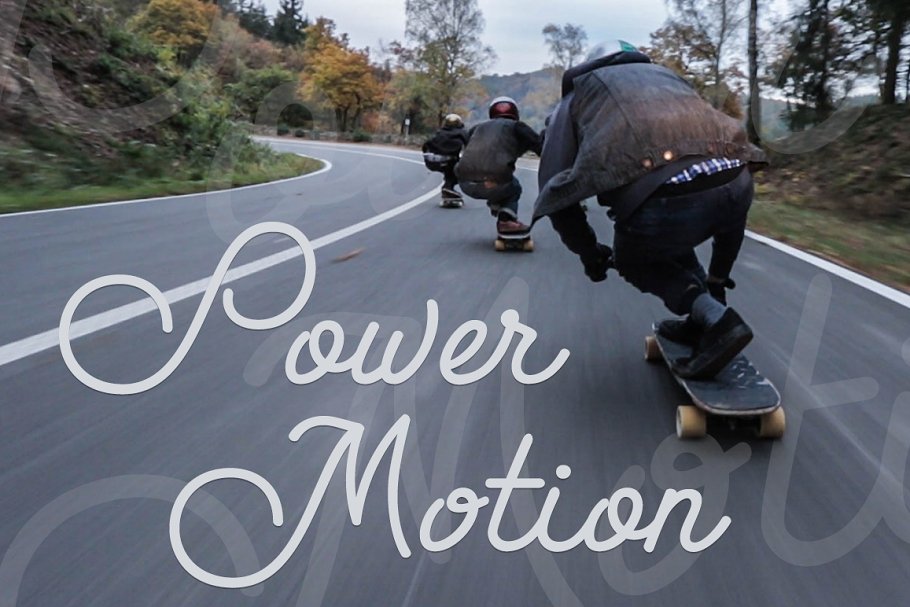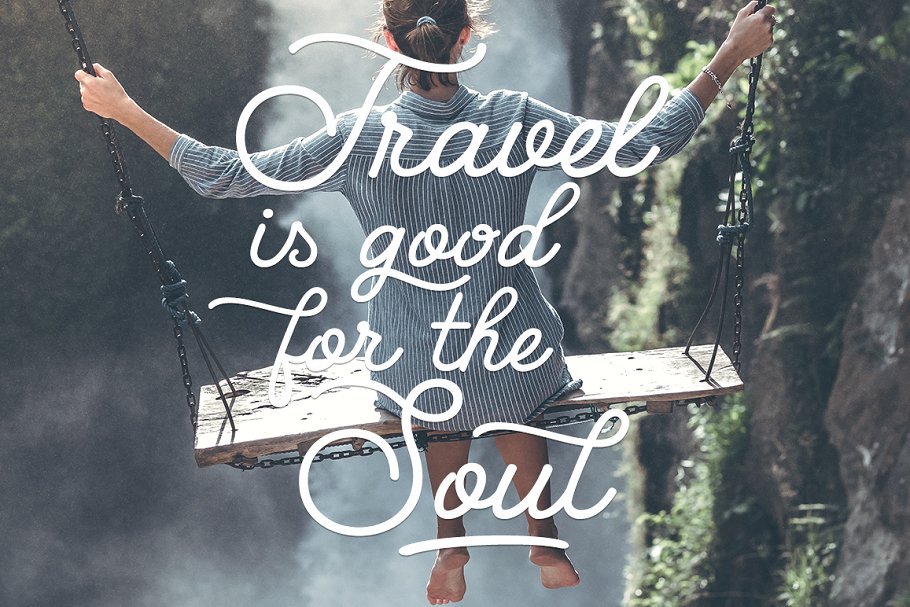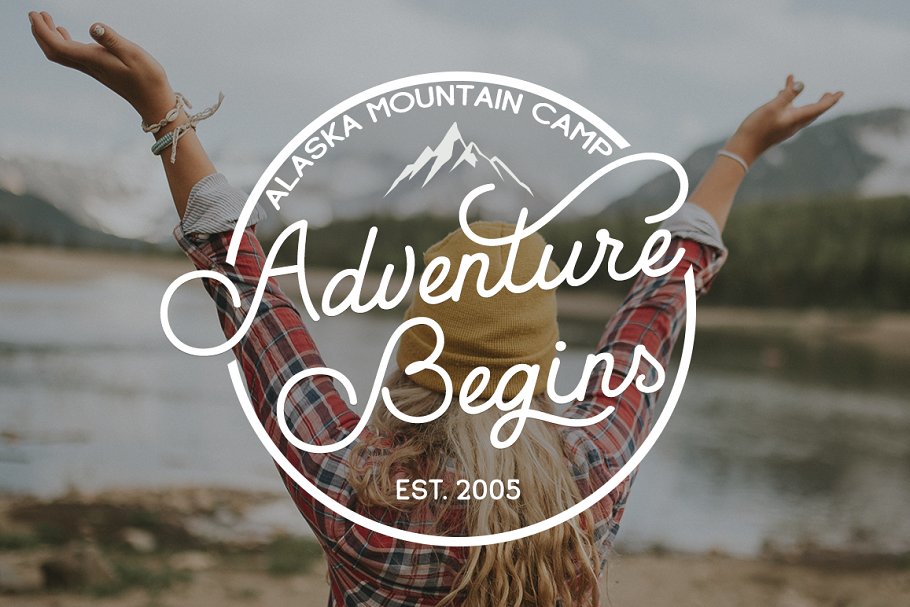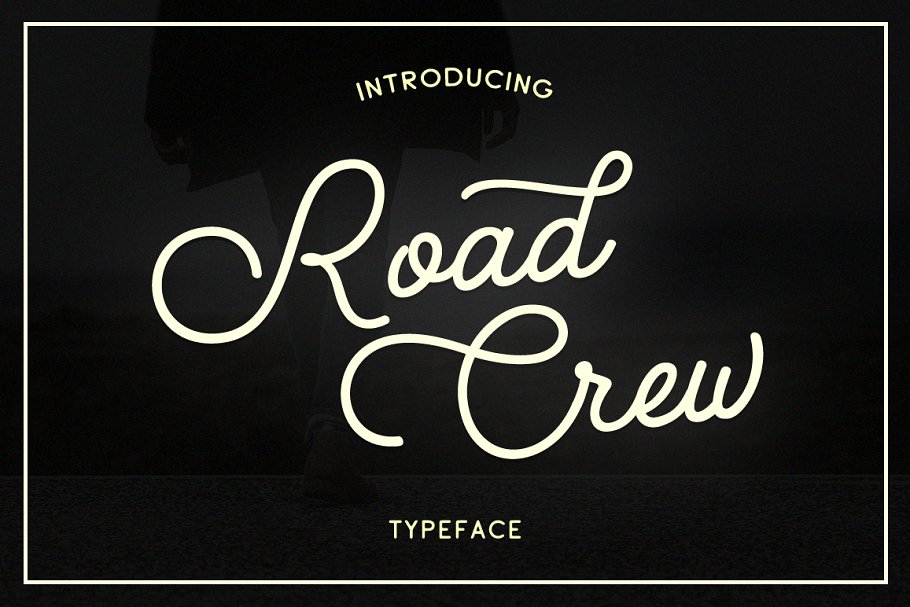
Road Crew Script Font
Introducing Road Crew Font. It is designed by Larin Type Co. this is a premium font, are sold on creativemarket, but it was great, it is free today for download. This font is ideal for branding and decorate your any project, are perfect for wedding invitation or your blog. Also with their help, you can create a logo or beautiful frame for your home. Or just use for your small business, book covers, stationery, marketing, magazines and more. Also for you, I have prepared many alternates so that you can make your project unique.